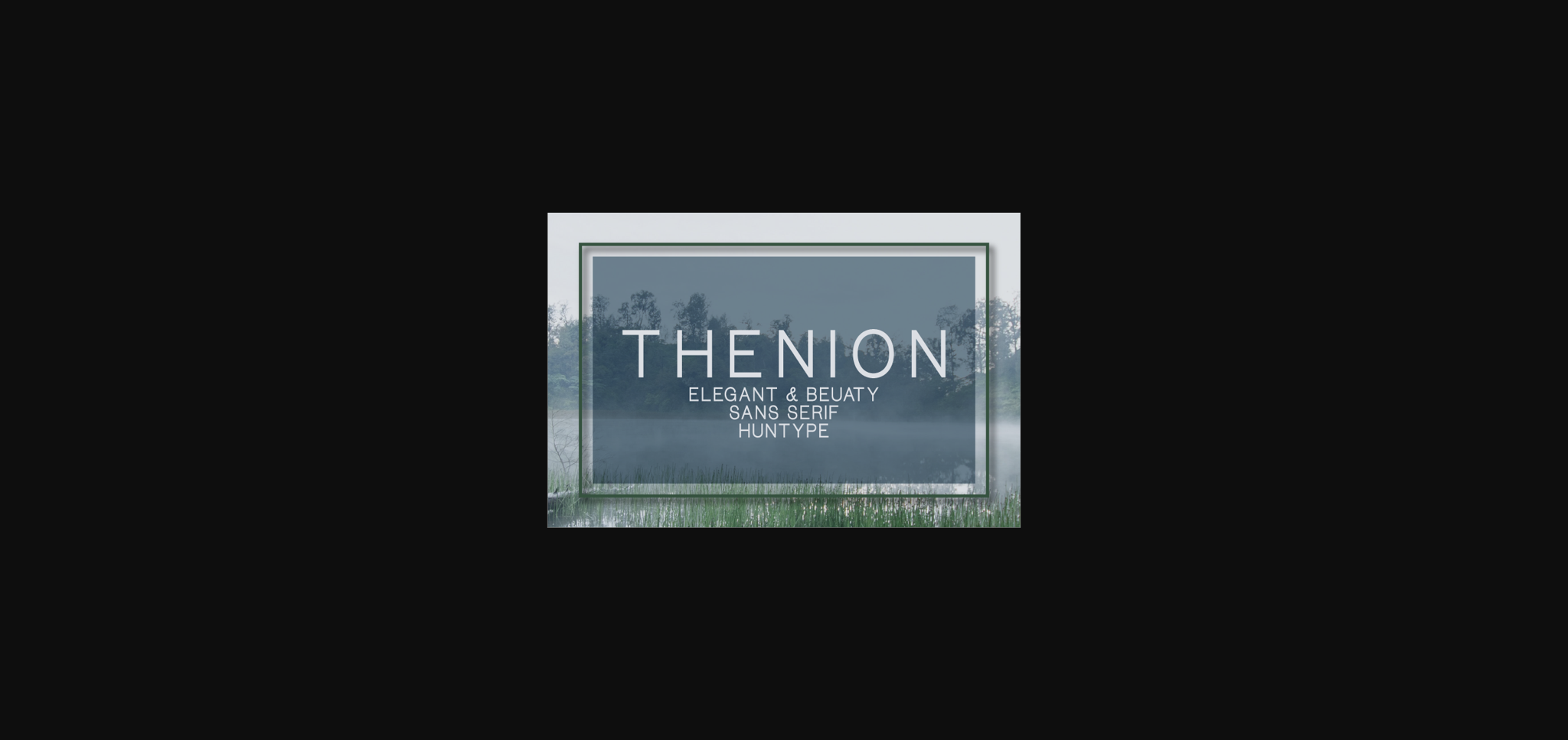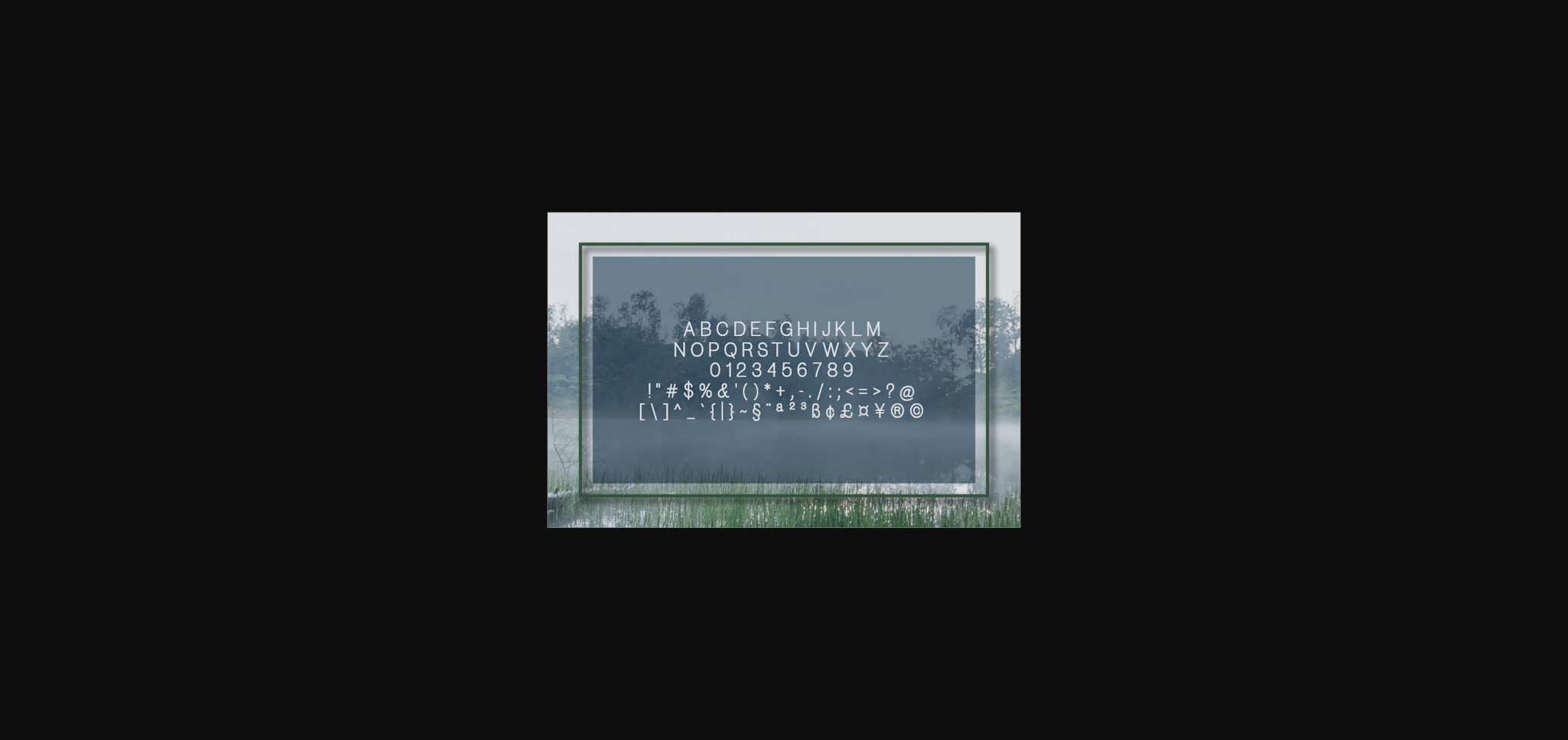
About Thenion Font
Thenion looks modern and sophisticated. It features extended characters that will look particularly adept when used in logos, branding, packaging design, and much more. This masterfully designed sans serif font is a true must-have.